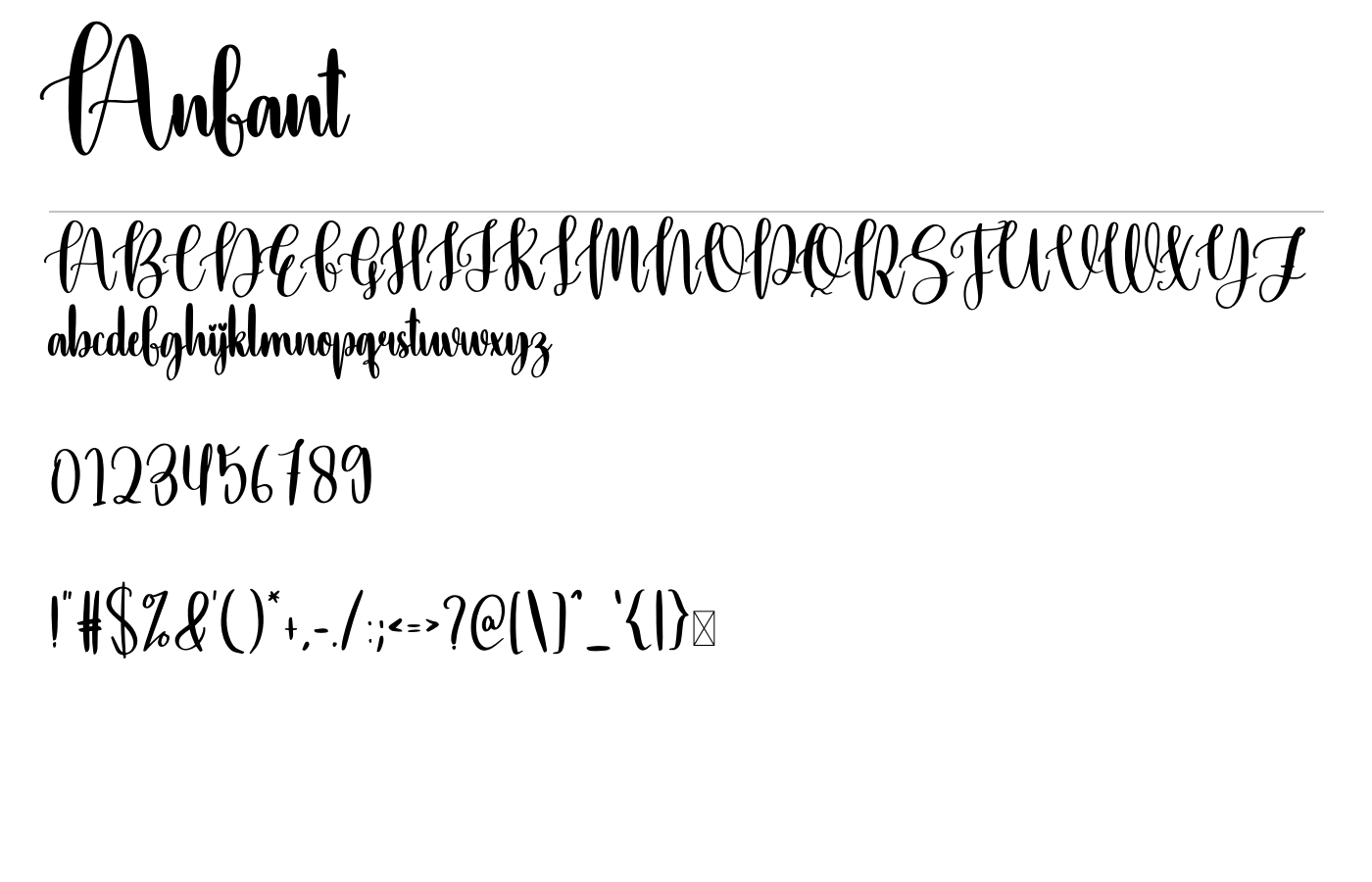
Anfant is a stylish script font featuring elegant, flowing uppercase letters paired with bold, playful lowercase characters. Its high contrast strokes and swirly details give it a charming, handcrafted feel, ideal for adding a touch of sophistication and personality. This font works wonderfully for invitations, branding, and creative projects where a warm, whimsical vibe is desired.
Anfant Font
About Anfant Font